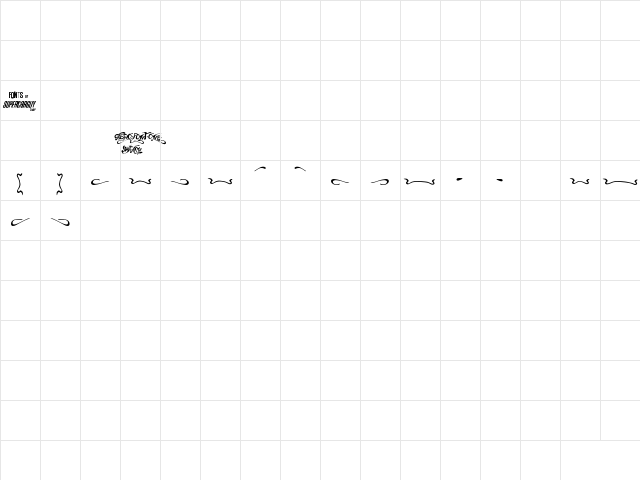
Aero Font One Swash Regular
Design Context for Aero Font One Swash Typeface
Aero Font One Swash flows with the natural rhythm of handwritten lettering, making it ideal for designs that call for warmth and personal expression.
Font Pairing: Combine Aero Font One Swash with a simple geometric sans for maximum contrast — the tension between flowing curves and clean structure is a classic typographic pairing.
Pro Tip: Pair Aero Font One Swash with a clean sans-serif for supporting text. The contrast between fluid script and geometric structure creates an elegant typographic hierarchy.